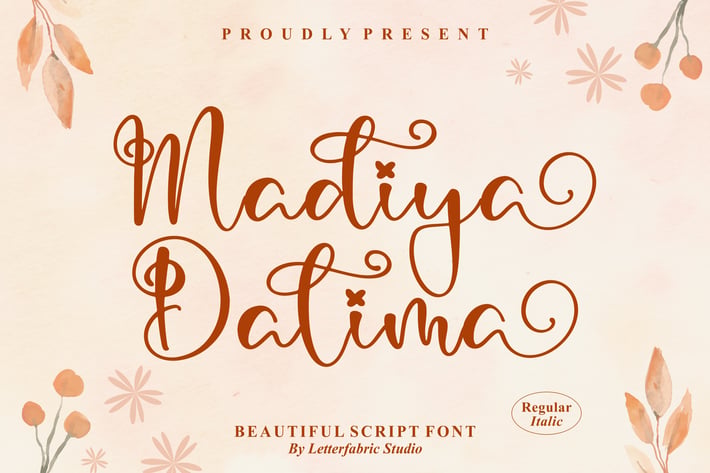
Madiya Dalima Beautiful Script Font
Madiya Dalima is a beautiful and elegant script font crafted with smooth curves and graceful handwritten strokes. Designed to bring a warm, romantic, and feminine feel, this font is perfect for branding, invitations, social media content, and stylish typography projects.
With its flowing letterforms and natural handwritten style, Madiya Dalima adds personality and charm while staying readable and versatile for both digital and print use.
Elegant handwritten script style
Smooth curves with decorative swashes
Regular & Italic styles included
Works perfectly at any size
Clean spacing and balanced flow
Suitable for digital and printed designs
Branding & logo design
Wedding invitations & stationery
Social media posts & quotes
Posters & packaging
Personal projects & creative designs